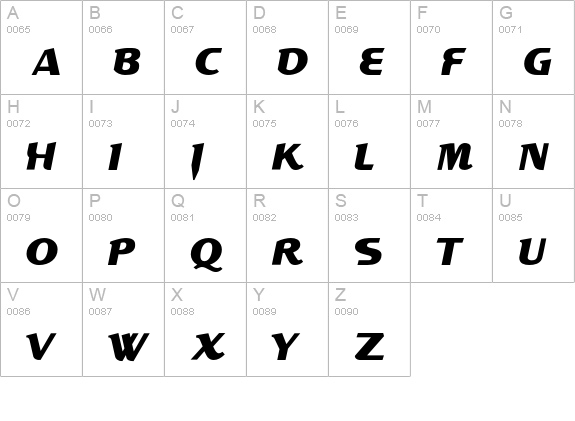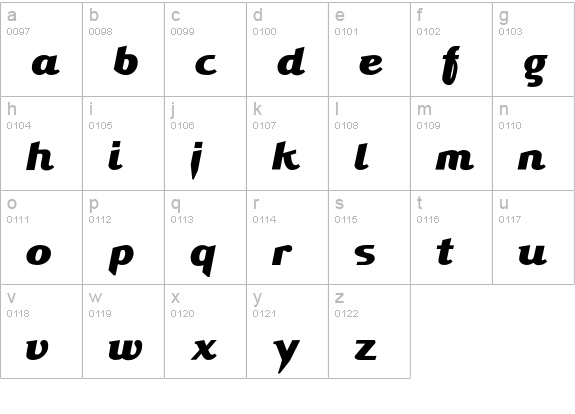
XYPERFORMULAIC-21SB Font Details
Introducing XYPERFORMULAIC-21SB font, a versatile and modern typeface designed to elevate your projects to the next level. This font boasts a sleek and sophisticated aesthetic that is perfect for a wide range of design applications, from branding to editorial design and everything in between. With its clean lines and sharp angles, XYPERFORMULAIC-21SB exudes a sense of professionalism and creativity. One of the best features of XYPERFORMULAIC-21SB font is that it is completely free to download. You can easily access this stylish typeface at FontsMarket.com, where you can add it to your font collection with just a few clicks. Whether you are a graphic designer, a web developer, or a creative hobbyist, XYPERFORMULAIC-21SB font is sure to inspire you and enhance your projects. Don't miss out on the opportunity to enhance your designs with the sleek and modern XYPERFORMULAIC-21SB font. Download it for free today and take your creative projects to new heights!